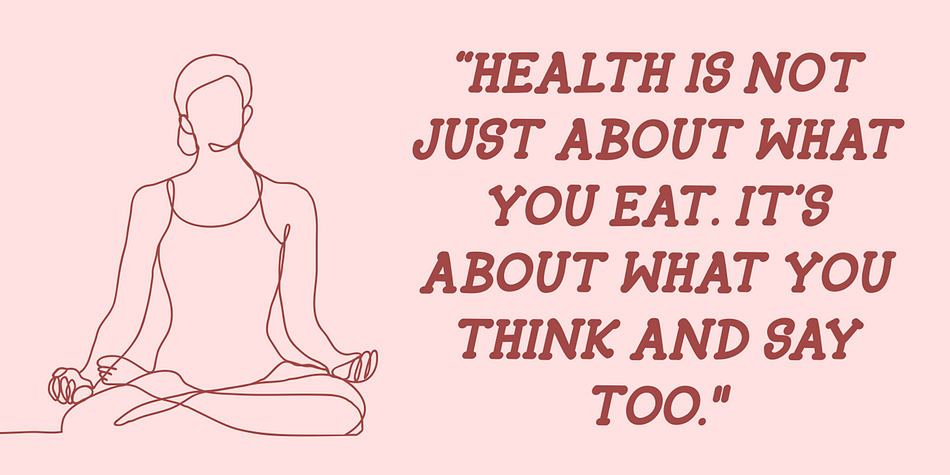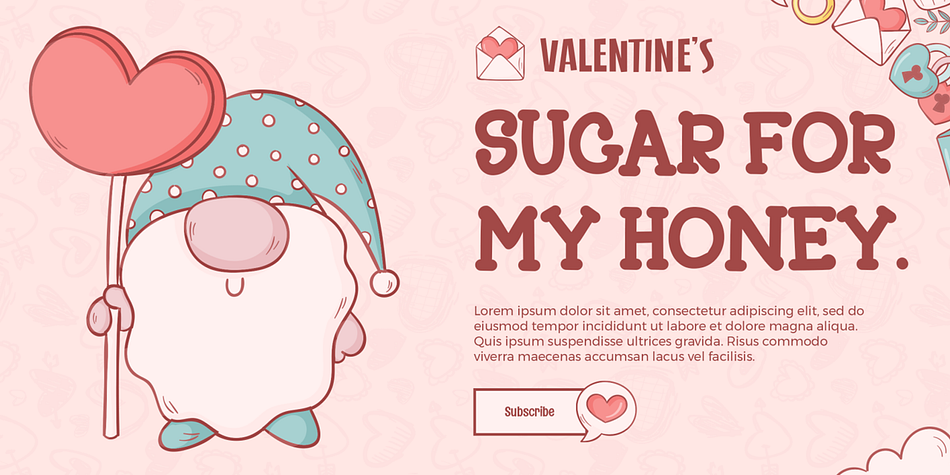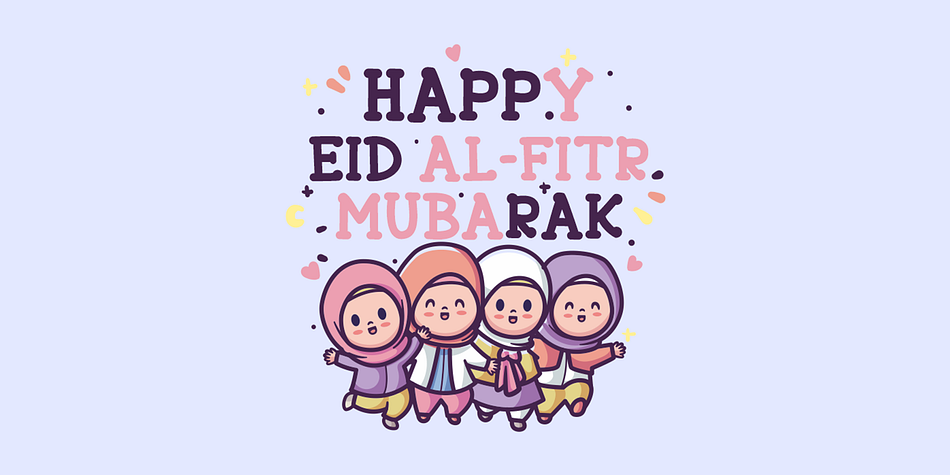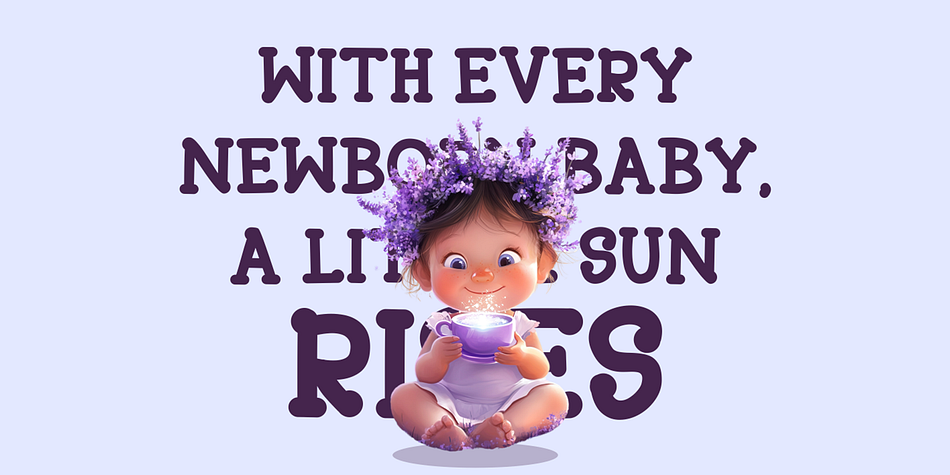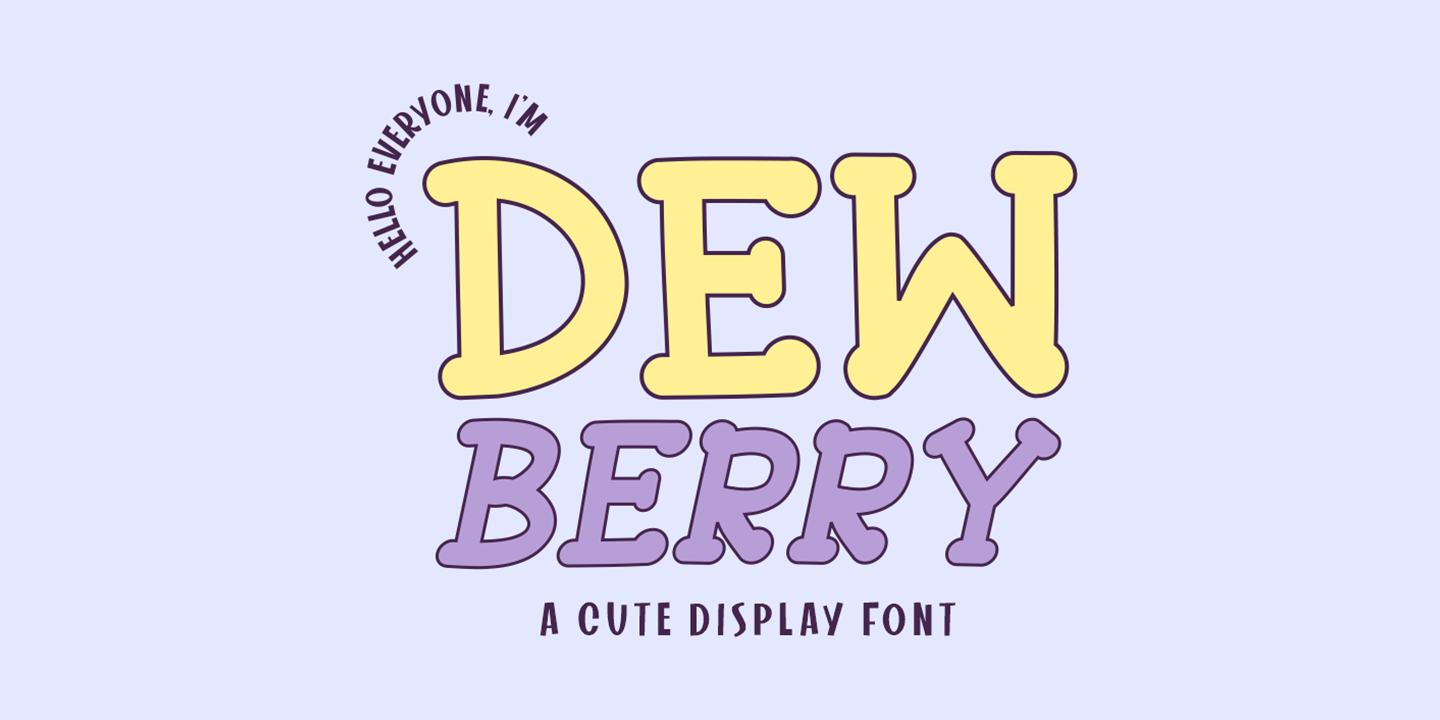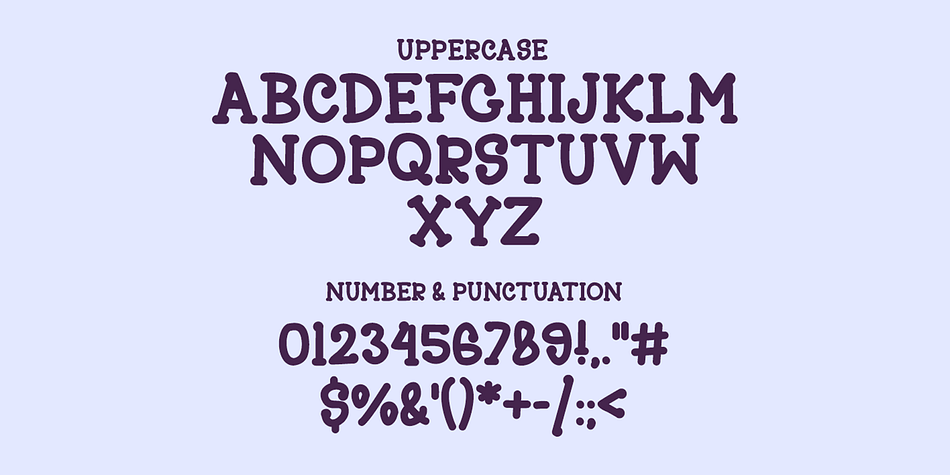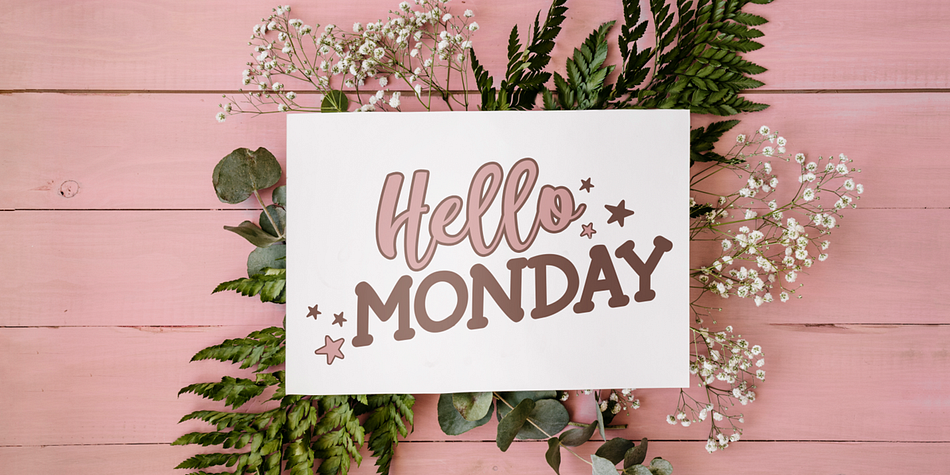
Dewberry
Dewberry is a display serif font family. This typeface has two styles and was published by Cikareotype Studio.
Dewberry is a simple and cute display font featuring thin, delicate characters with a charming and playful feel. Available in both regular and italic styles, this font is perfect for crafting adorable designs, from children’s books and greeting cards to branding and social media posts. Its clean yet whimsical look makes it a great choice for any project that needs a touch of sweetness and elegance.
Versatile for branding, headline, or printing product